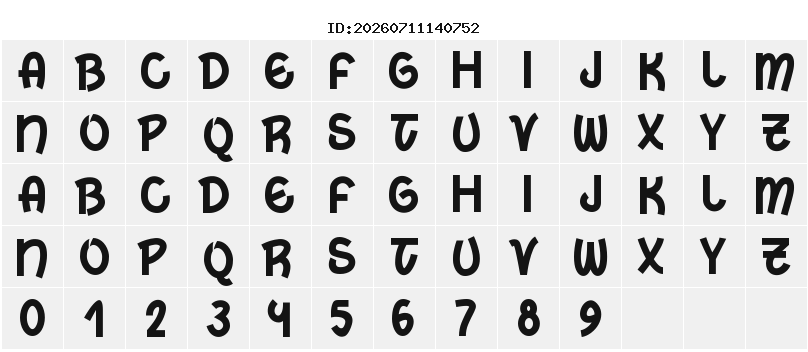
Marela Preview
About Marela.ttf
Marela.ttf is a modern, elegant sans-serif font designed for ultimate readability and visual harmony. Perfect for branding, headlines, web design, and print materials.